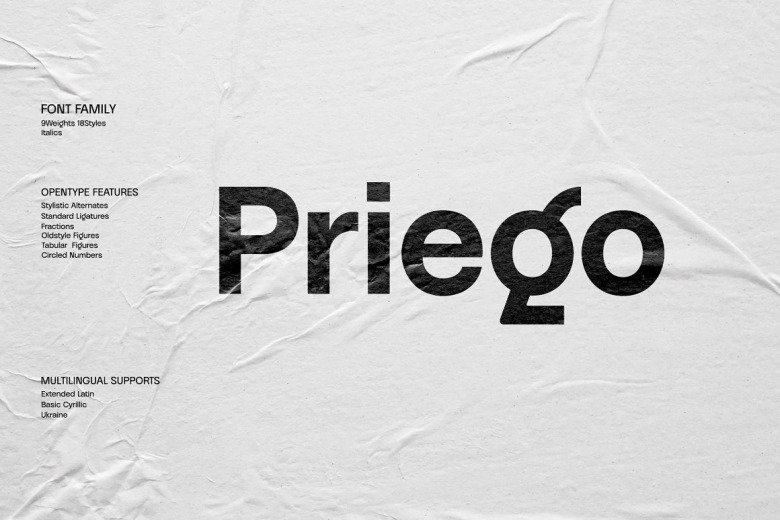
Priego Font Family
Priego Font
Priego Sans Serif Font Family – Here are timeless sans developed with a little of caprice and unstable grotesque here. However, visibility and contrast, specifically, positive contrast and clear visibility, remain as the key aspects of all glyphs.
This modern Sans font family was created to be interchangeable with other typefaces that have a balanced measure of stem thickness as well as opposing Alternates. If you wish to encounter a terribly different feel to this grotesque here are a few Alternate.
Priego Sans Serif Font Family